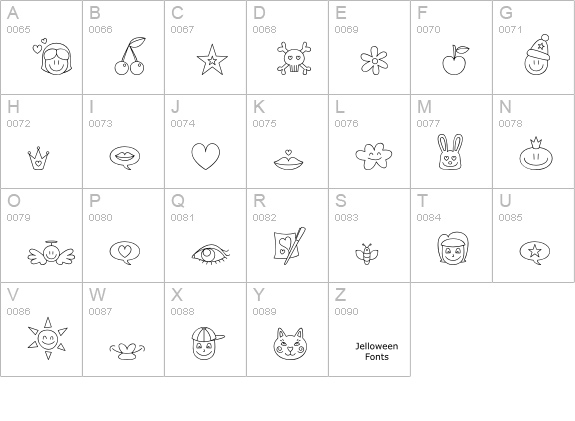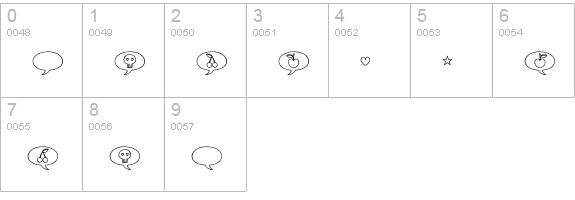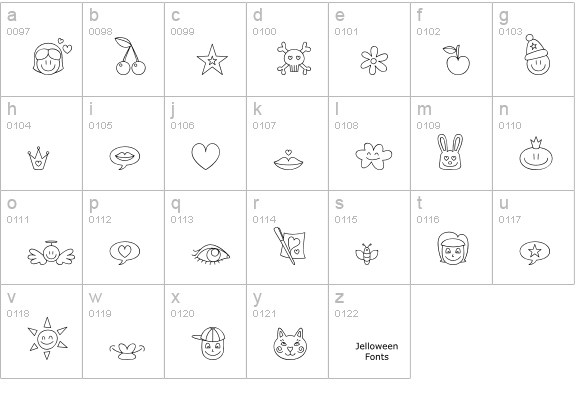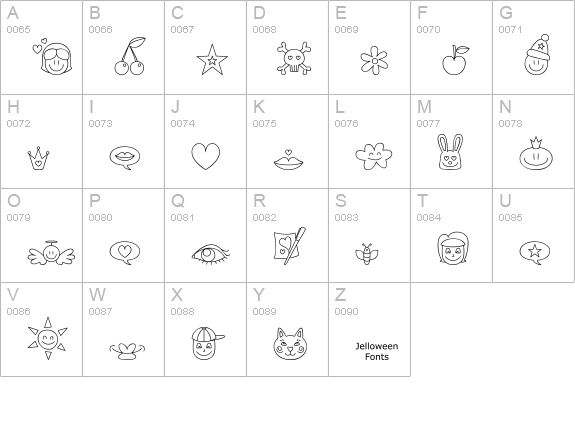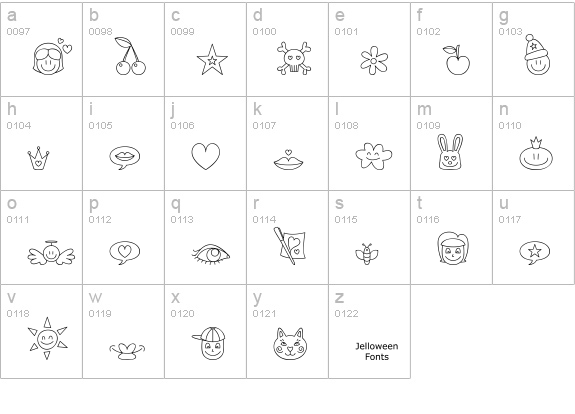
Jellodings Font Details
Introducing Jellodings Font, a whimsical and playful typeface that is sure to add a touch of fun to your designs. With its unique curves and bouncy letterforms, Jellodings Font is perfect for a variety of projects, from branding and packaging to invitations and social media graphics. This delightful font is completely free to use, allowing you to bring a cheerful vibe to your creations without any cost. You can easily download Jellodings Font at FontsMarket.com and start incorporating its charm into your designs today. Add a dose of creativity and playfulness to your projects with Jellodings Font!